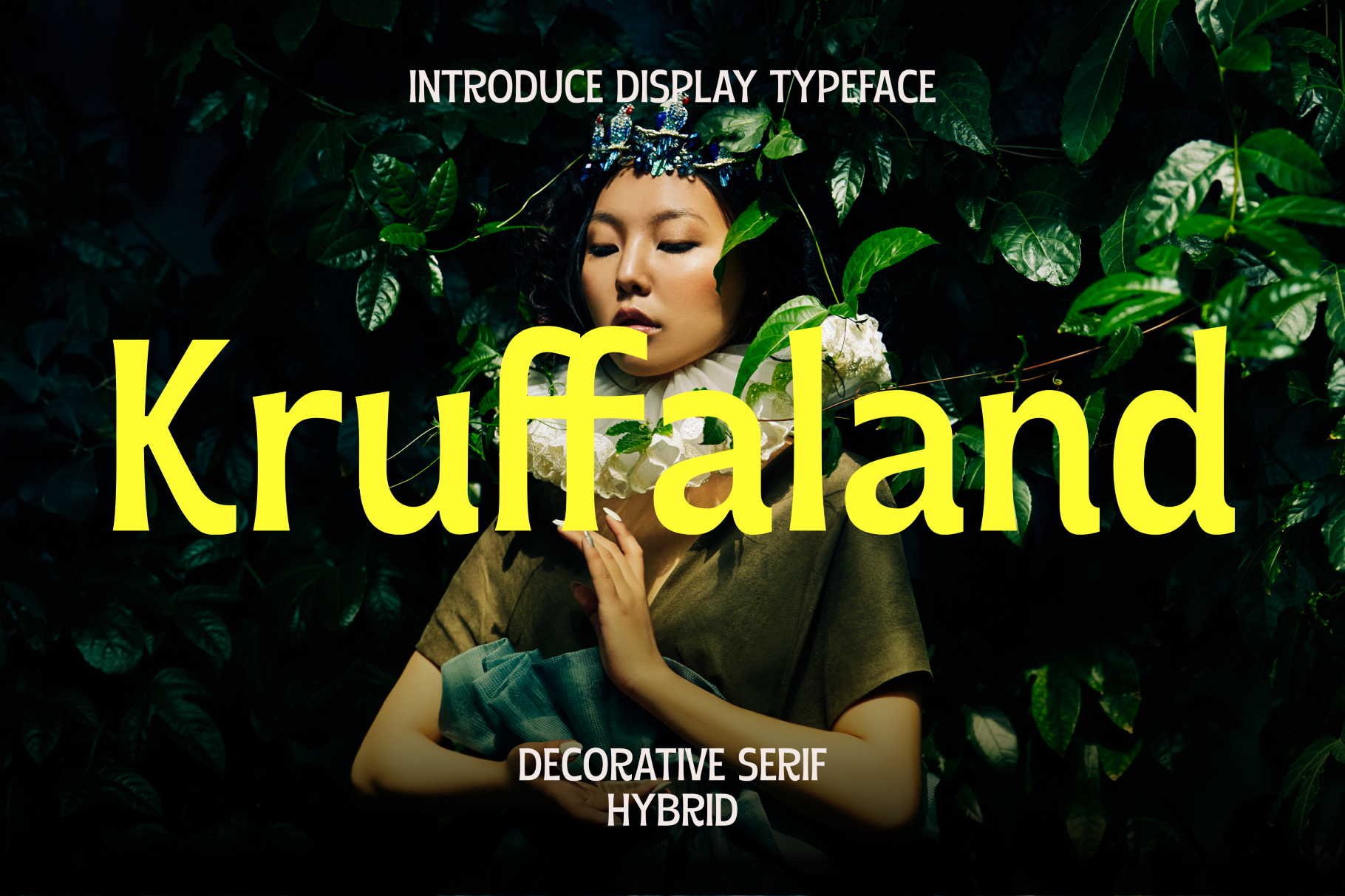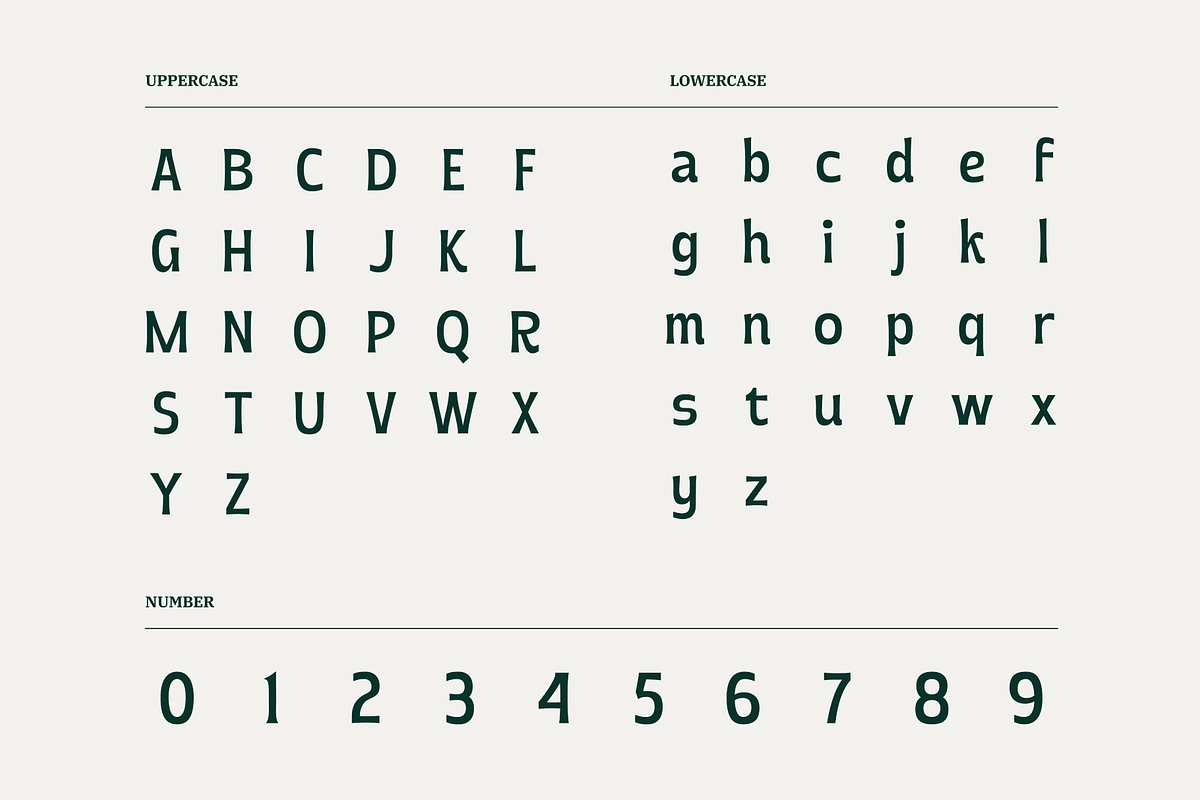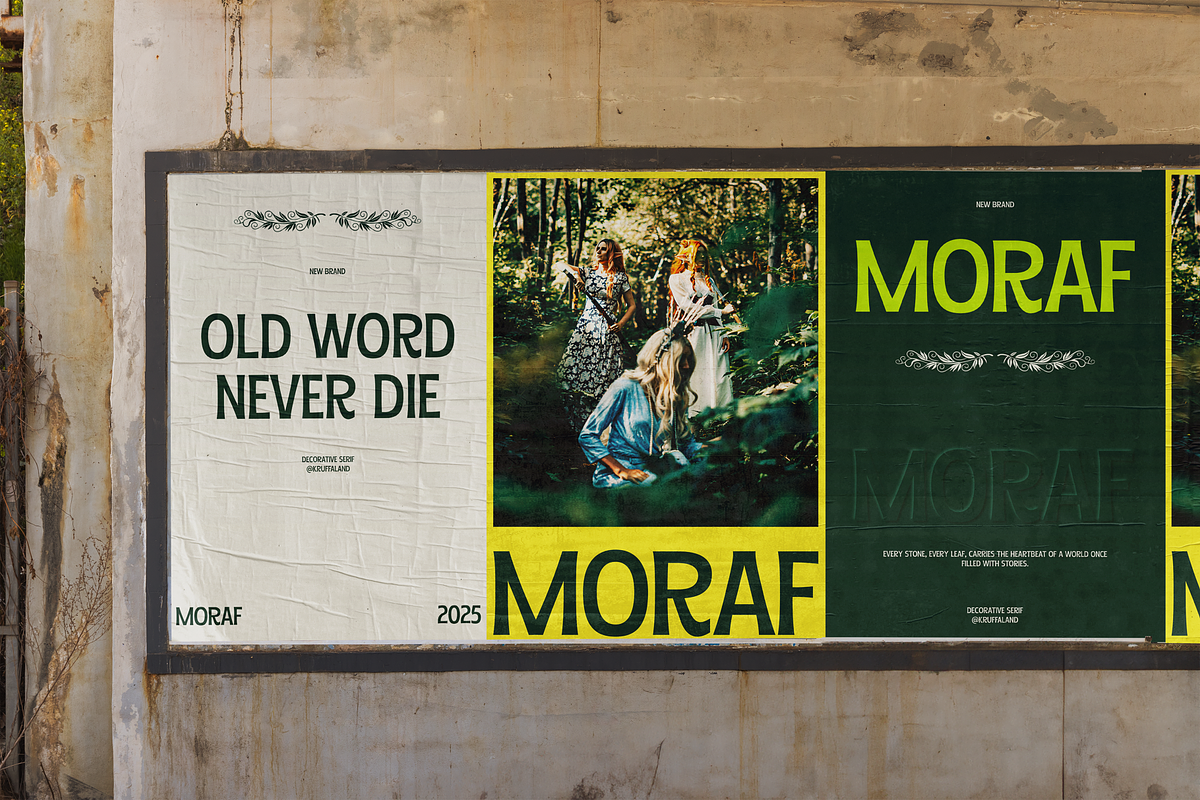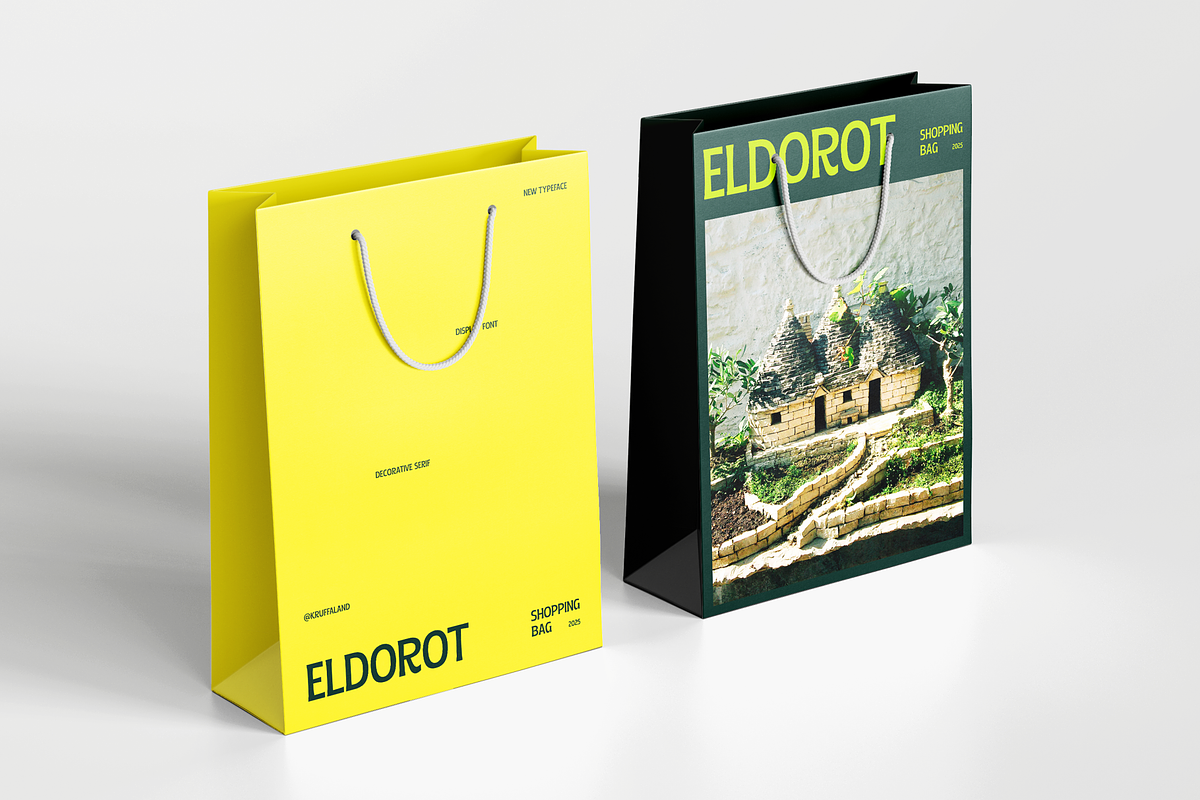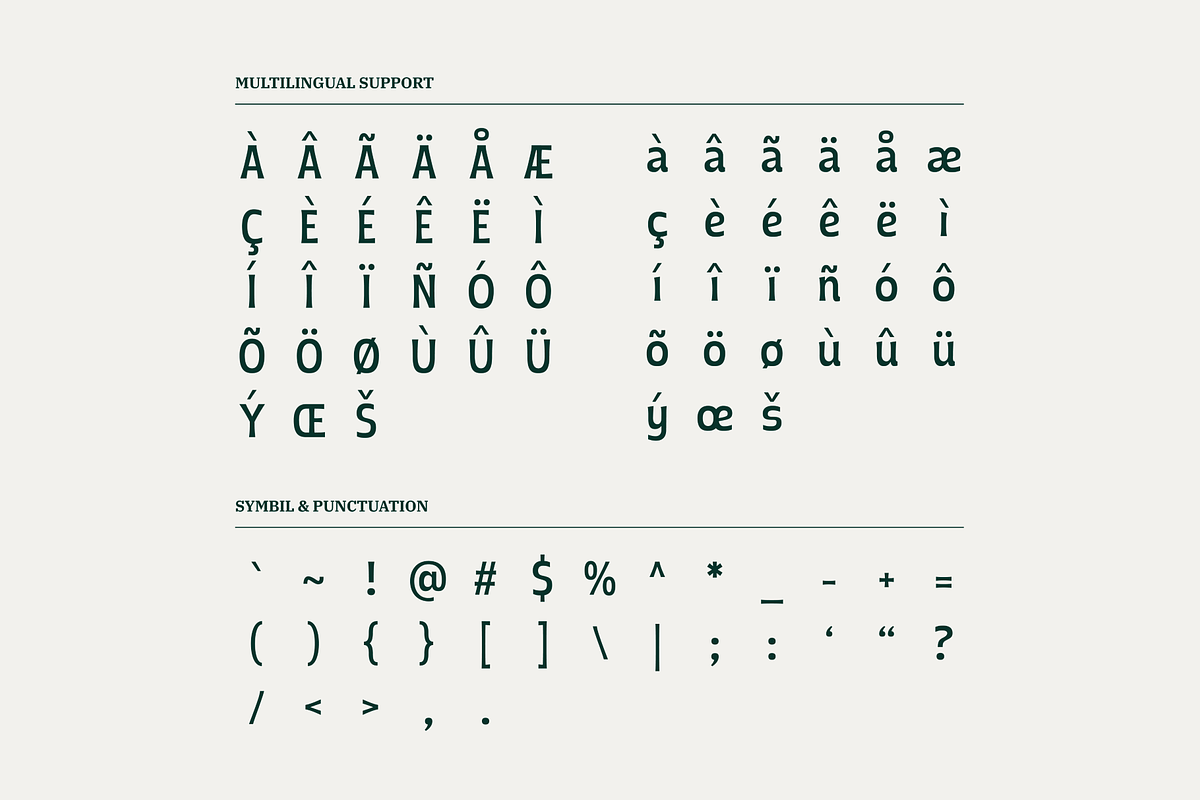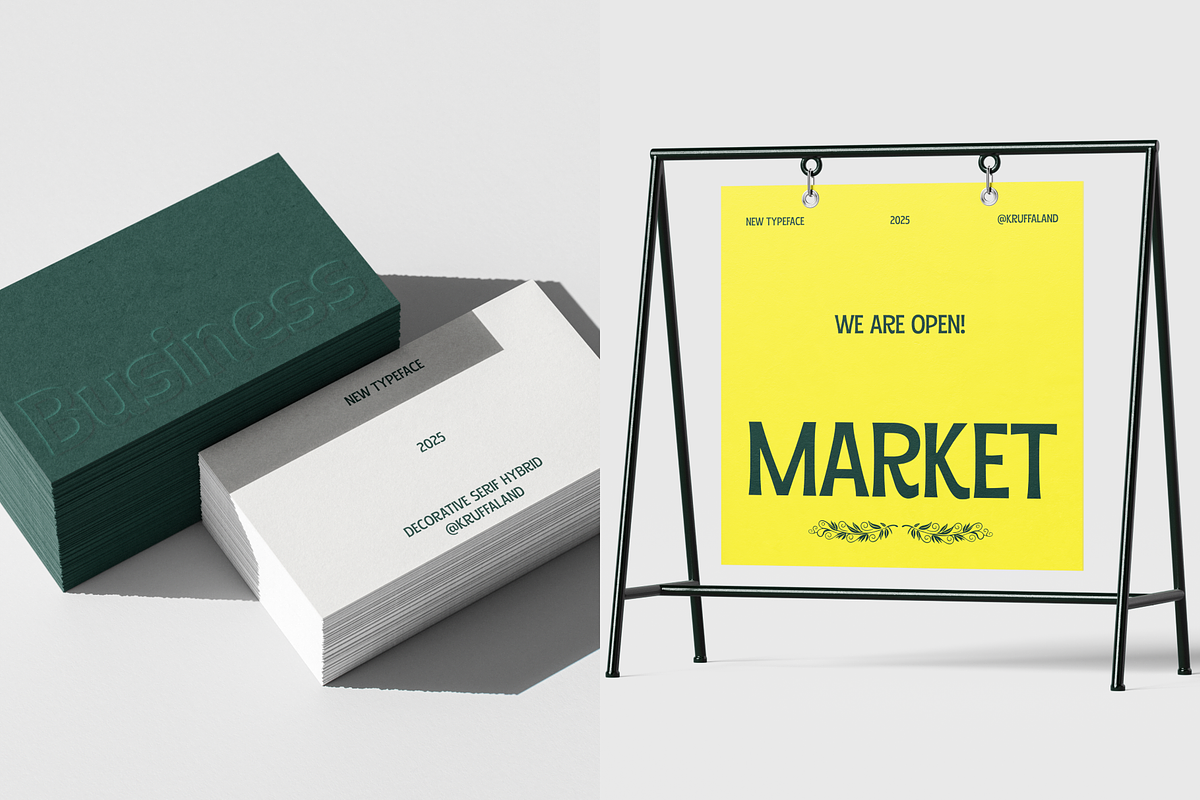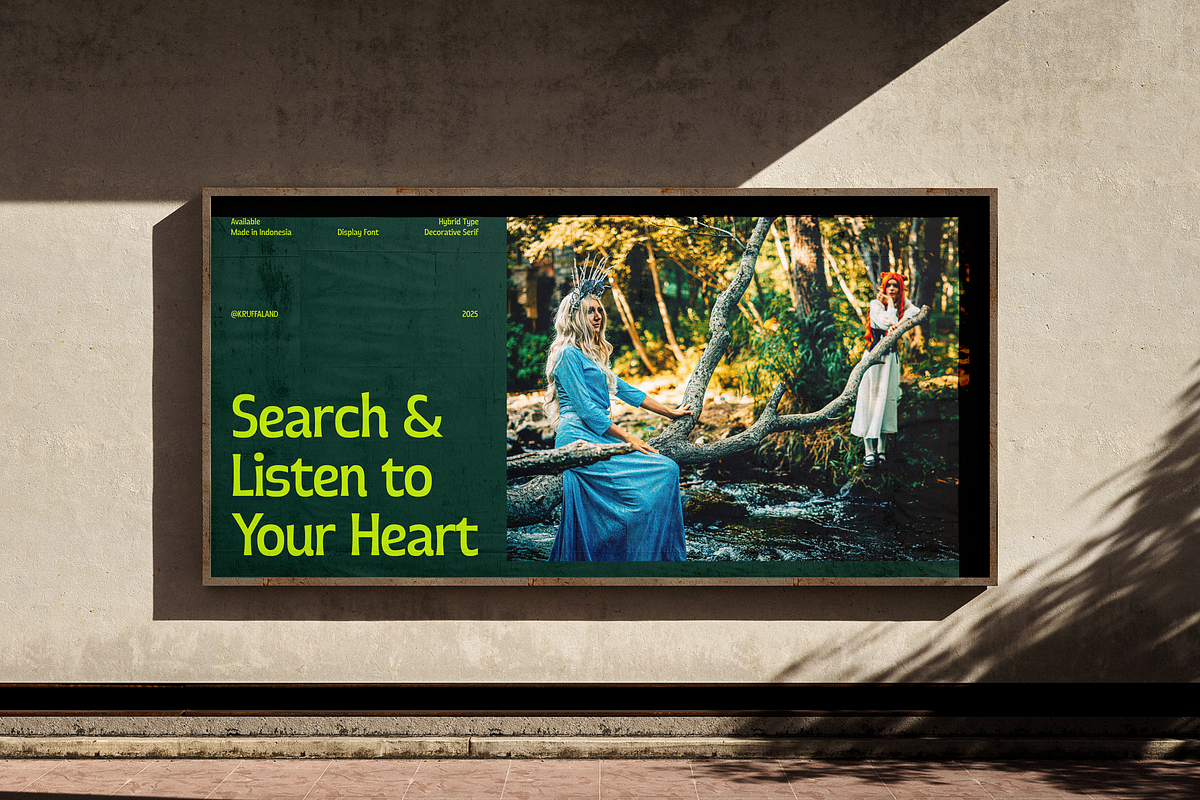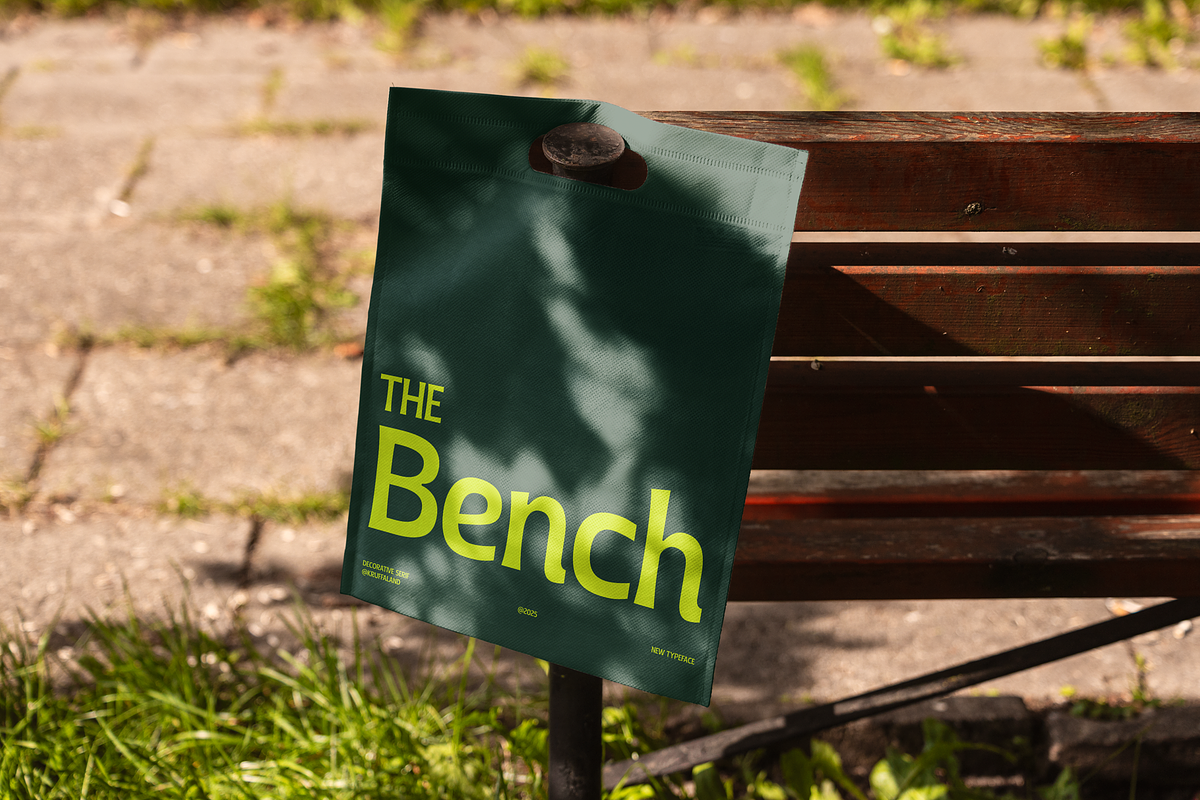
Kruffaland - Decorative Serif Font
Kruffaland is a bold decorative serif display font with a unique hybrid style that blends elegance and artistic character. Perfect for branding, posters, editorial layouts, and expressive titles, this typeface delivers strong personality and eye-catching shapes. Ideal for designers seeking a stylish, modern, and standout display typeface.